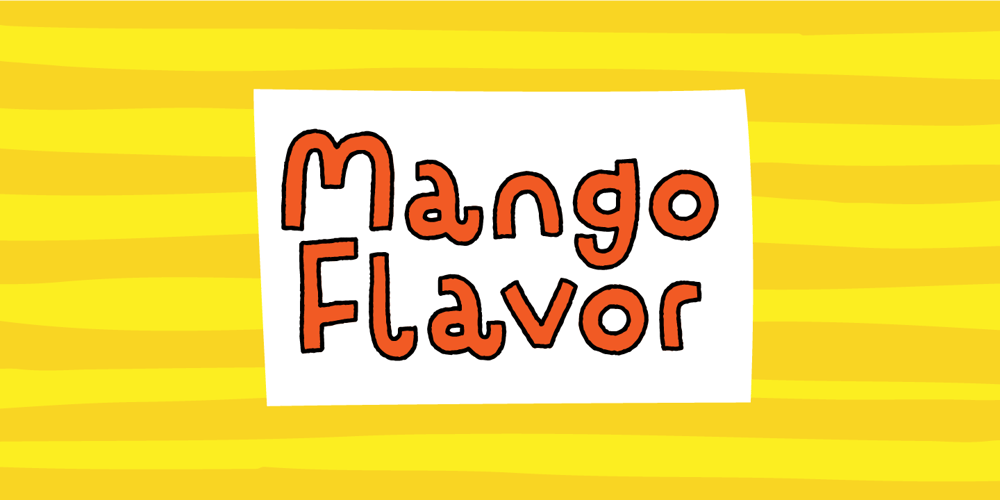
Mango Flavor
Mango Flavor font
Mango Flavor Font Family was designed by Jakob Fischer and published by PizzaDude.dk. Mango Flavor contains 2 styles and family package options. Mango Flavor is my super cool comic-ish font with a taste of … you may have guessed it…Mango! :)It’s playful and jumpy and wants to be a part of the action!